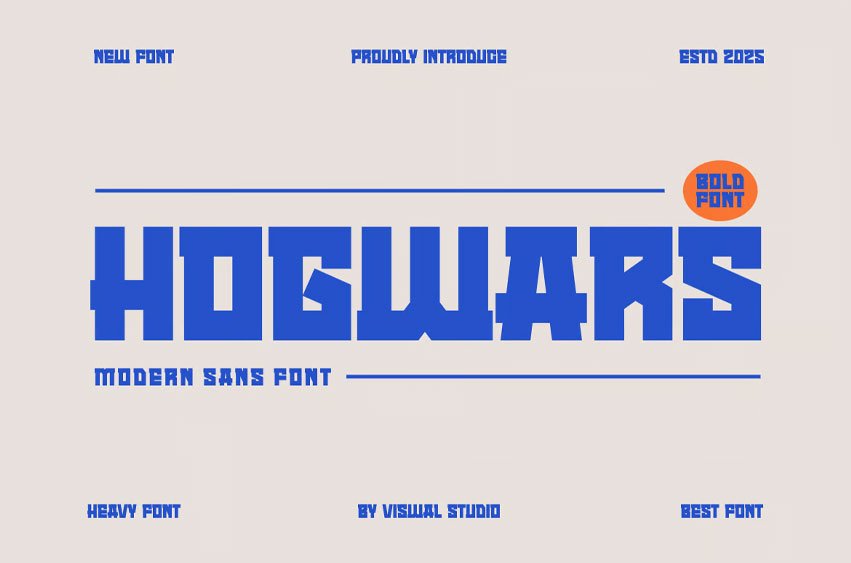
Hogwars Font is suitable for badges, labels, logos, branding, magazines, posters, etc. Our fonts have Uppercase & Lowercase, Numeral & Punctuation, Multilingual support, and Opentype Features. For Amazing designs, you can mix with other fonts as a complement.